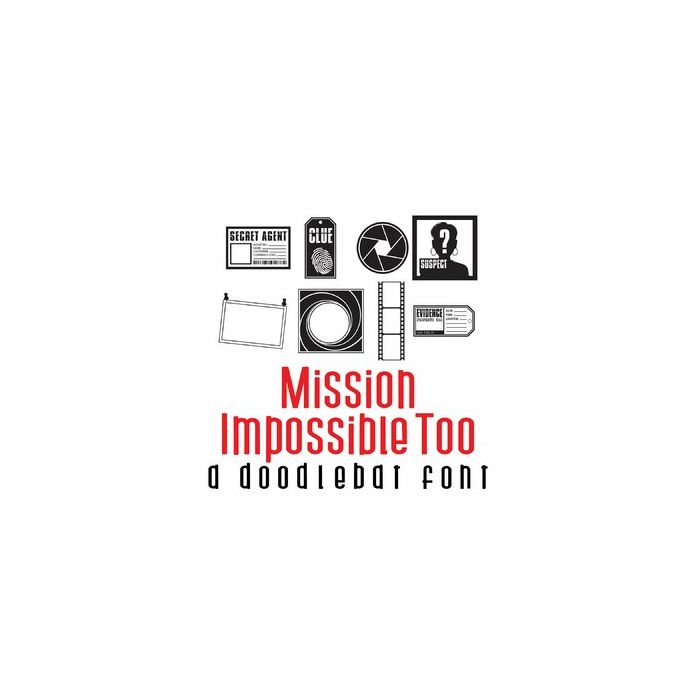
This fun doodlebat font features 26 spy themed images including frames, perfect for parties, crafts, gifts, camps, decor, scrap book pages, planner stickers and more!